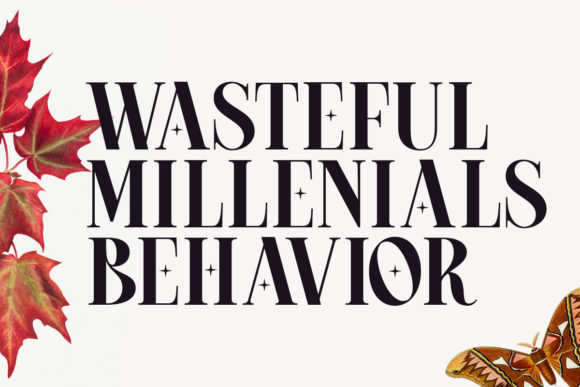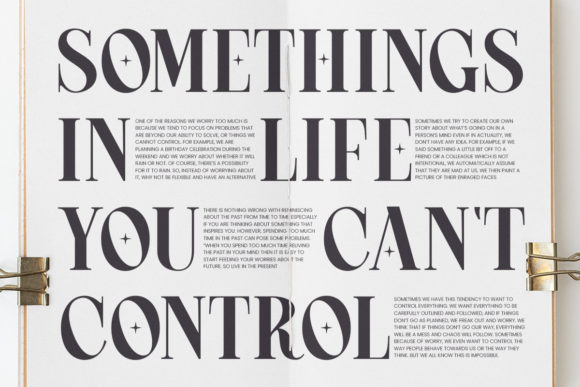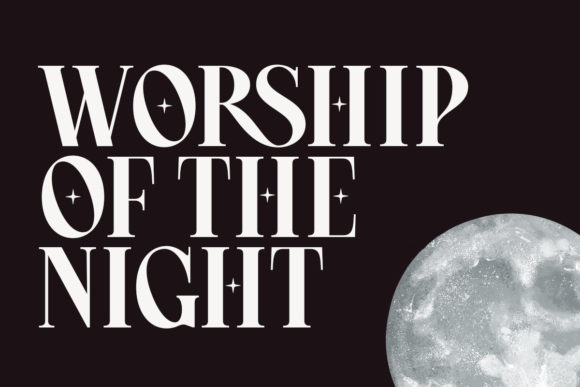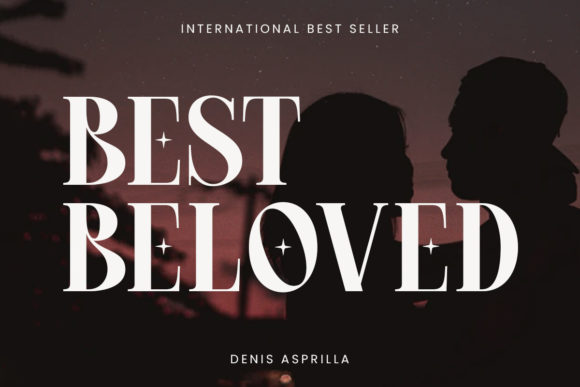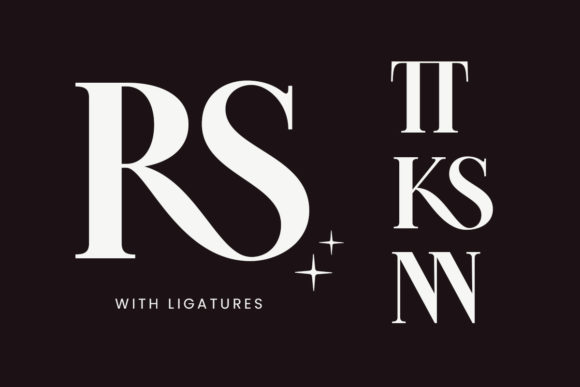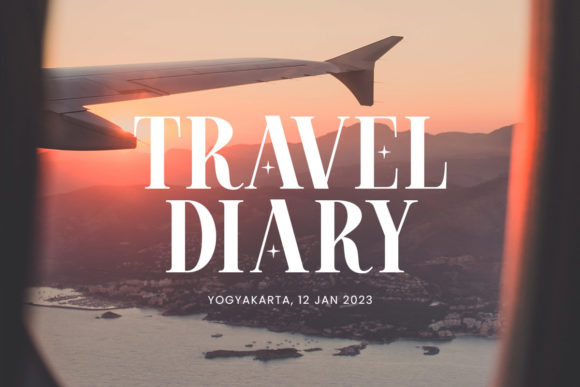
Crimson Queen Font: Elevate Your Designs with Elegance and Sophistication
In the world of typography, fonts play a crucial role in conveying the tone and personality of a design. For designers and crafters looking for a modern, elegant, and versatile font, Crimson Queen is an excellent choice. This stunning serif font boasts a condensed style and a clean look, making it perfect for a wide range of projects, from headlines and logos to books, magazines, and movies.
What is Crimson Queen Font?
Crimson Queen is a modern serif font designed to provide a sophisticated and refined look to your designs. Its condensed style allows for efficient use of space, making it ideal for projects where text needs to be presented in a clear and concise manner. The clean lines and classic serif features of Crimson Queen ensure that it remains highly legible, even at smaller font sizes.
Key Features of Crimson Queen Font
- Modern Serif Design: Crimson Queen features a modern take on traditional serif fonts, with subtle curves and refined lines that give it a contemporary feel.
- Condensed Style: The font’s condensed style makes it perfect for use in tight spaces, such as headlines, titles, and captions, without compromising on readability.
- Clean and Elegant: The clean design of Crimson Queen ensures that your text looks elegant and sophisticated, making it suitable for high-end projects and designs.
- Highly Legible: Despite its condensed style, Crimson Queen maintains high legibility, making it suitable for body text as well as headlines.
- Versatile: This font can be used across a variety of mediums, including print and digital platforms, making it a versatile addition to your font library.
Use Cases for Crimson Queen Font
Crimson Queen’s versatility makes it suitable for a wide range of design projects. Here are some use cases where this font truly shines:
- Headlines and Titles: The font’s condensed style and elegant look make it perfect for headlines, titles, and captions in newspapers, magazines, and online publications.
- Logo Design: Crimson Queen can be used to create elegant and memorable logos for brands, especially those in the luxury, fashion, and editorial sectors.
- Books and Magazines: The font’s readability and classic look make it suitable for use in books, eBooks, and magazines, providing a comfortable reading experience for readers.
- Movies and Theater: Crimson Queen can add a touch of elegance and sophistication to movie posters, theater productions, and event branding.
- Digital Media: The font can also be used in digital media, such as website headers, social media graphics, and digital advertising, to add a touch of sophistication and elegance.
Why Choose Crimson Queen Font?
With so many fonts available, why should you choose Crimson Queen for your designs? Here are a few compelling reasons:
- Unique and Distinctive: Crimson Queen offers a unique blend of modernity and classic elegance, setting it apart from more traditional serif fonts.
- Time-Saving: Its condensed style allows you to fit more text into smaller spaces, saving you time and effort in design and editing.
- Cross-Platform Compatibility: Crimson Queen is designed to work seamlessly across various platforms and devices, ensuring your designs look great everywhere.
- Support for Multiple Languages: The font supports multiple languages, making it a great choice for global brands and multilingual publications.
| Author | Rillatype |
Crimson Queen font is a powerful tool for designers and crafters looking to elevate their designs with a touch of elegance and sophistication. Its modern serif design, condensed style, and clean look make it perfect for a wide range of projects, from traditional print media to digital platforms. Whether you’re working on a headline, logo, book, magazine, or movie project, Crimson Queen is sure to make a lasting impression. So, why wait? Download Crimson Queen font today and discover a world of typographic possibilities.